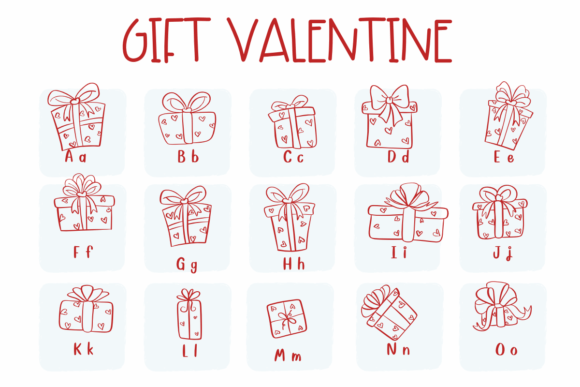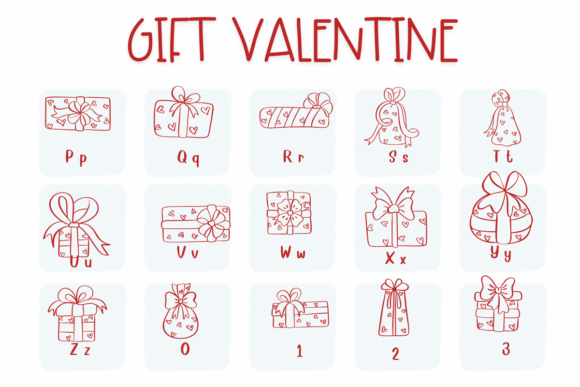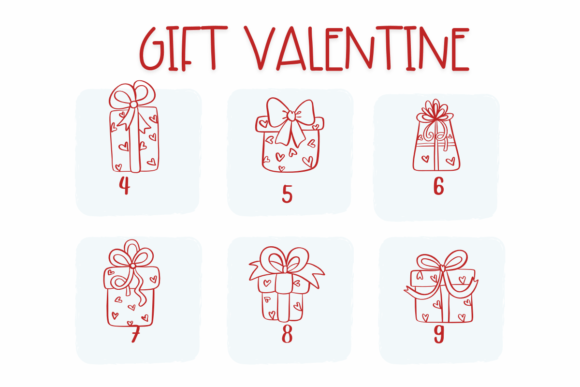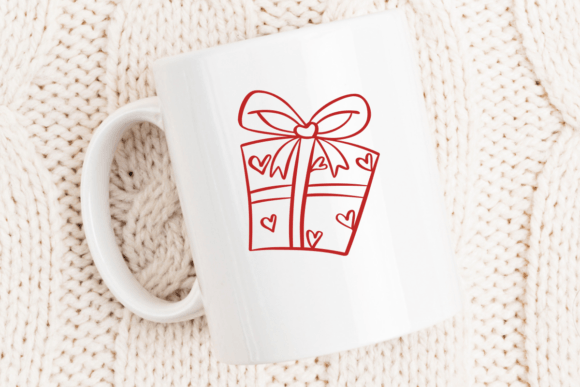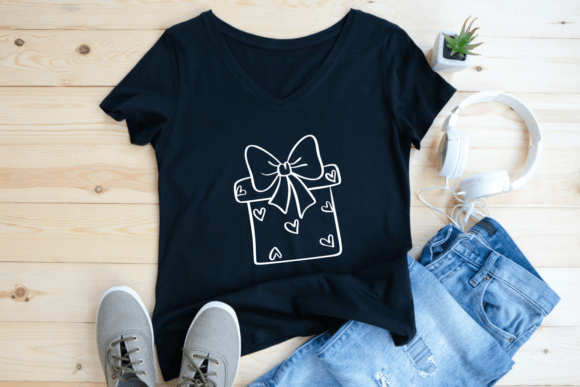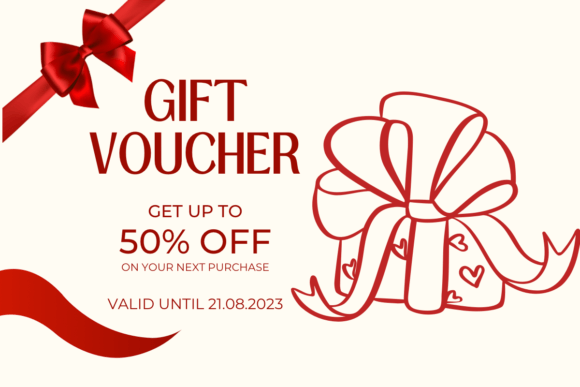
Adding a Personal Touch to Your Creations
Remember the rush of excitement when you’re brainstorming ideas for a special project? Maybe it’s a wedding invitation, a DIY gift for a loved one, or a logo for your business. The possibilities are endless, and the right font can make all the difference. That’s where the Gift Valentine Font comes in – a beautiful dingbats font that adds a personal touch to your creative endeavors.
This charming font is designed to bring a sketchy, hand-drawn feel to your projects. With its playful and romantic theme, it’s perfect for Valentine’s Day, weddings, or any occasion that calls for a touch of whimsy. For designers, the Gift Valentine Font is a valuable addition to their toolkit, offering endless possibilities for enhancing their creative projects.
Gift Valentine Font Key Features
- Unique Characteristics: The Gift Valentine Font features a unique, hand-drawn design with intricate details and ornaments, adding a touch of elegance and sophistication to any project.
Gift Valentine Font Review
As a designer, I was excited to dive into the Gift Valentine Font, but my experience was a mixed bag. Here’s the lowdown:
- ✨ Unique and playful design: The Gift Valentine Font has a whimsical feel that’s perfect for Valentine’s Day or other romantic occasions.
- ✨ Customizable: I appreciated the flexibility of adjusting the font’s styles and sizes to fit my design needs.
- ⚠️ Limited character set: Unfortunately, the font only includes a limited set of characters, which may not be suitable for longer text blocks.
- ⚠️ Lack of consistency: Some letters and symbols looked a bit wonky, which detracted from the overall polish of the design.
Overall, I’d give the Gift Valentine Font 3 out of 5 stars. While it’s a great choice for short, decorative text, its limitations make it less suitable for more extensive design projects. If you’re looking for a fun, playful font for a specific occasion, Gift Valentine might be worth a try. Just be sure to test it thoroughly before committing to a larger project.